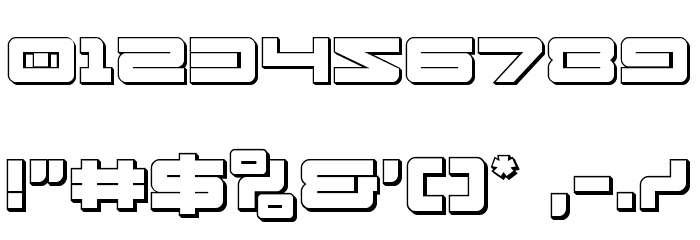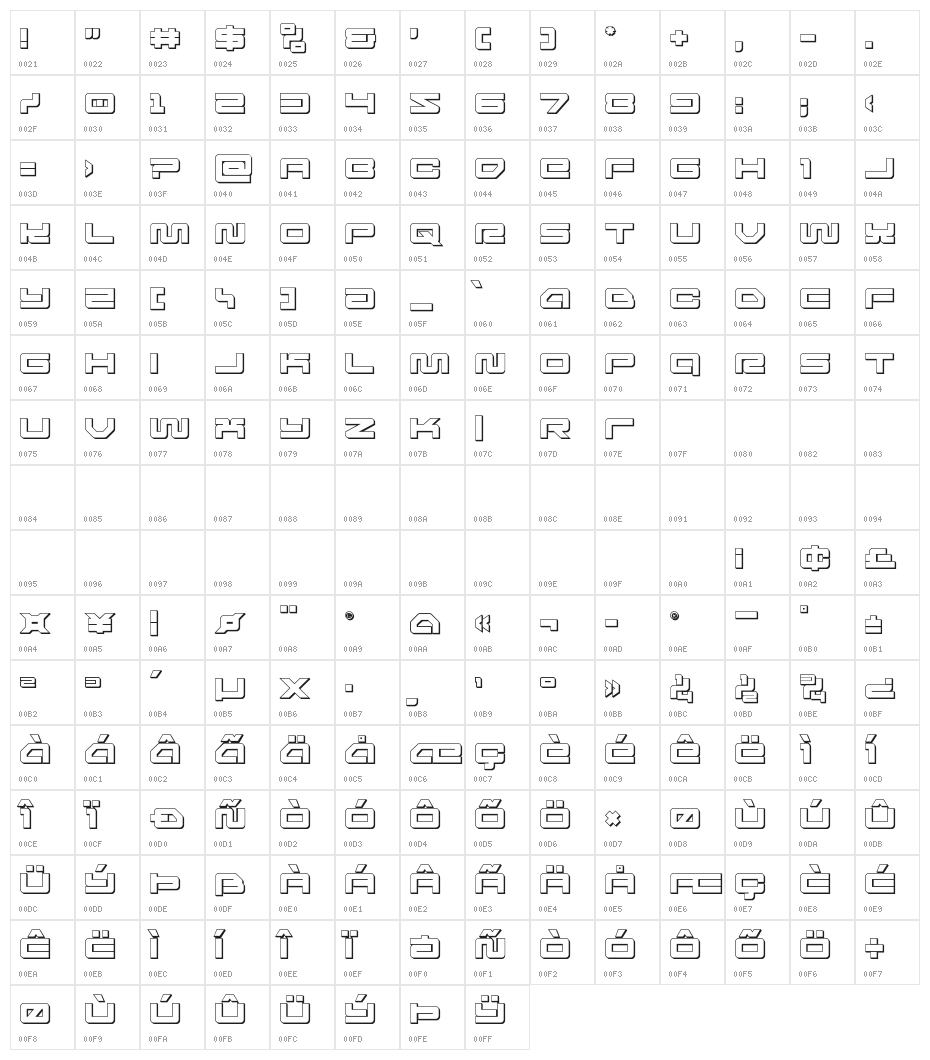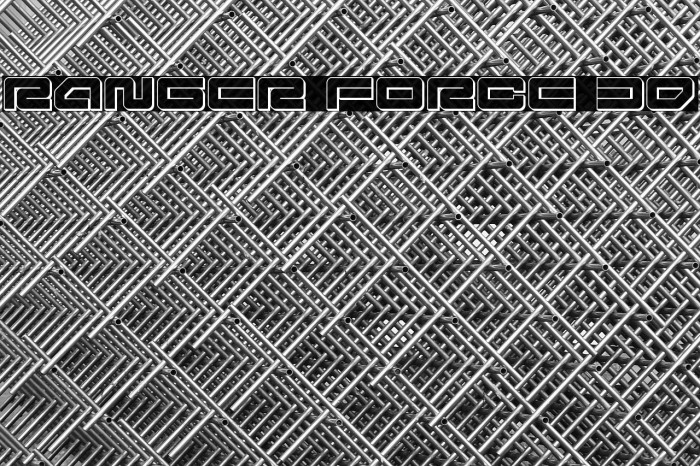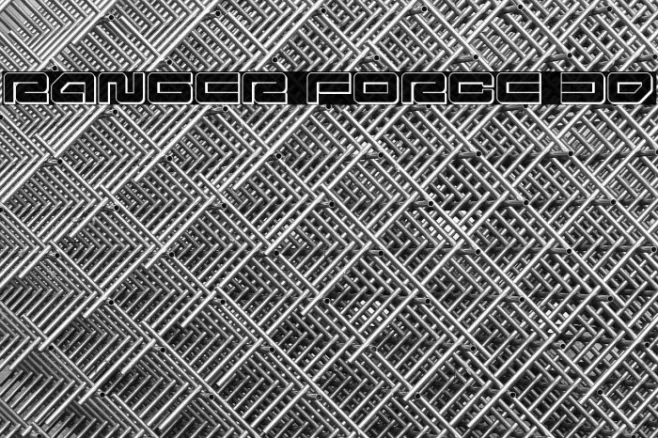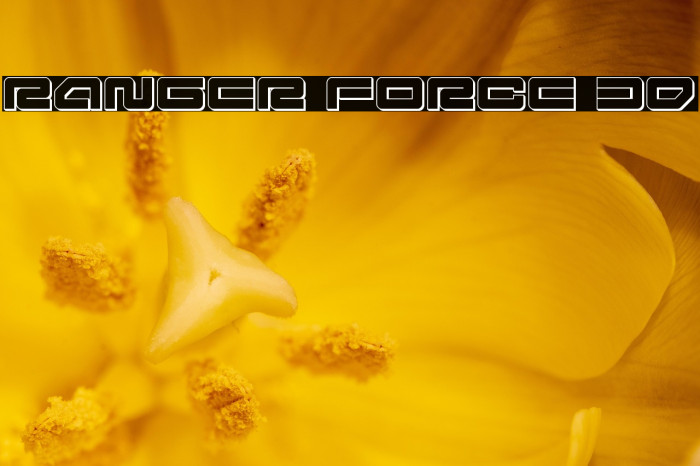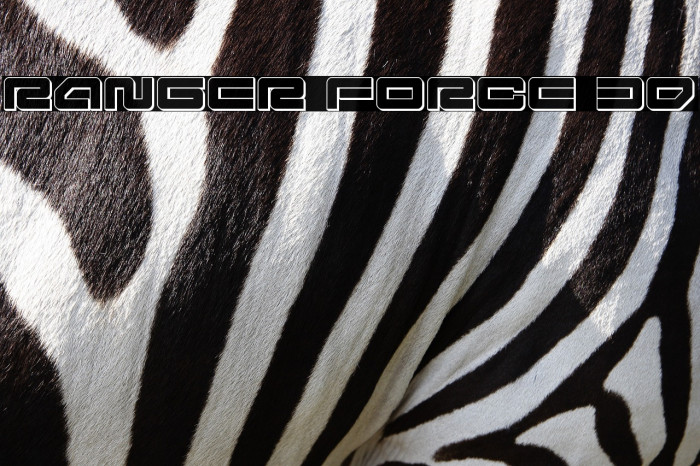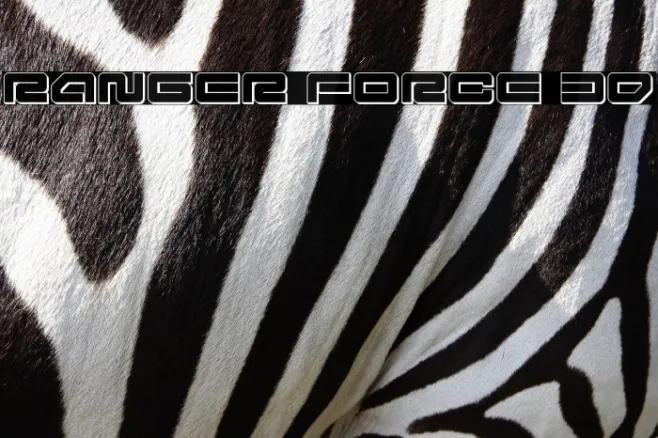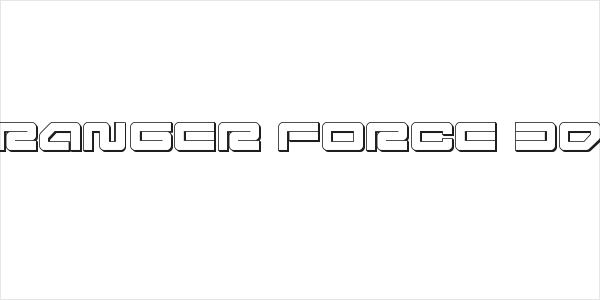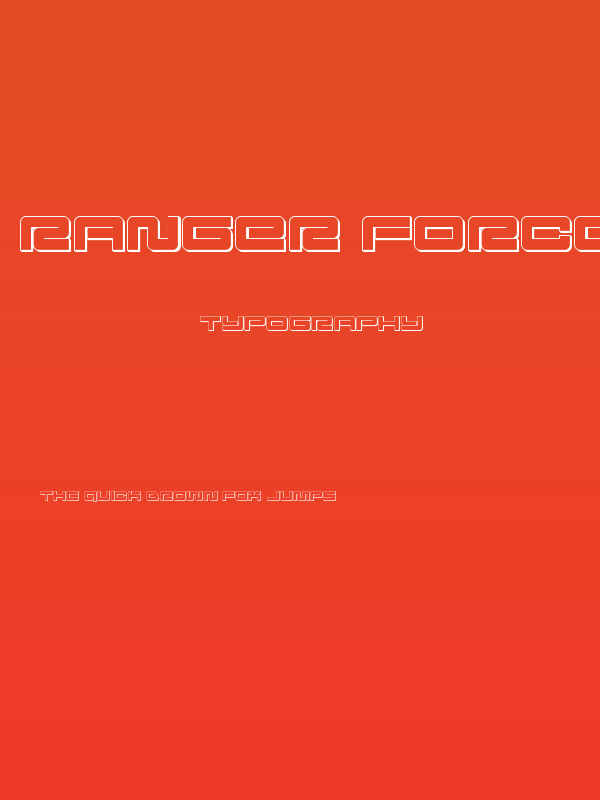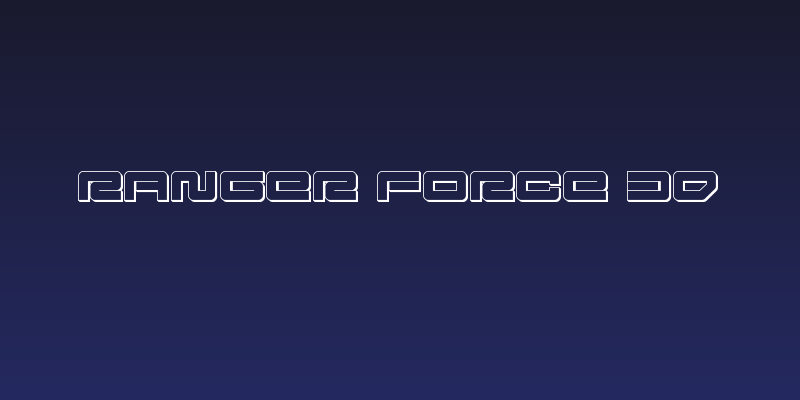
Ranger Force 3D Font
Ranger Force 3D Description
This font features a bold, futuristic design with a three-dimensional effect. The characters are outlined, giving them a hollow appearance that enhances their modern and tech-inspired aesthetic. The geometric shapes and angular lines contribute to a sense of precision and innovation. Each letter is distinct, with uniform stroke widths that maintain consistency across the typeface. The numbers and special characters follow the same design principles, ensuring a cohesive look. This font is ideal for projects that require a strong, impactful visual presence.
| Proposed Projects | Ideal for technology branding, video game titles, sci-fi posters, and futuristic event promotions. |